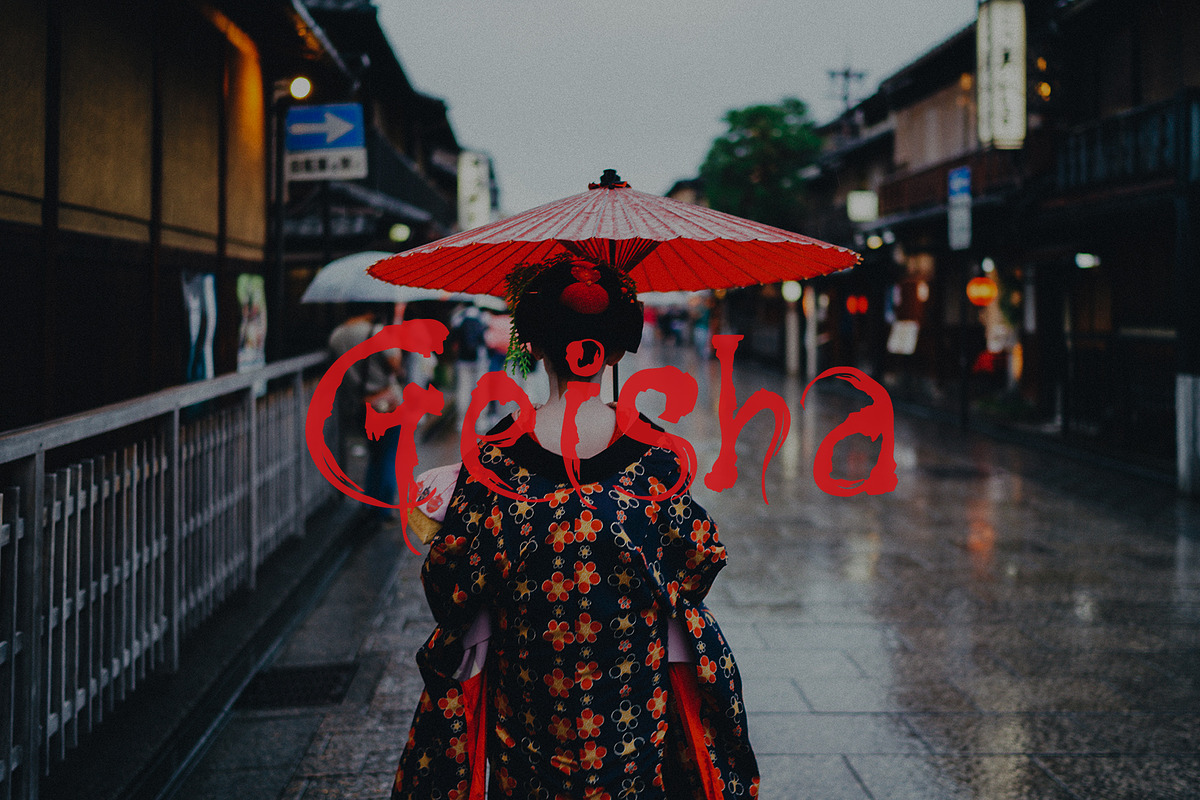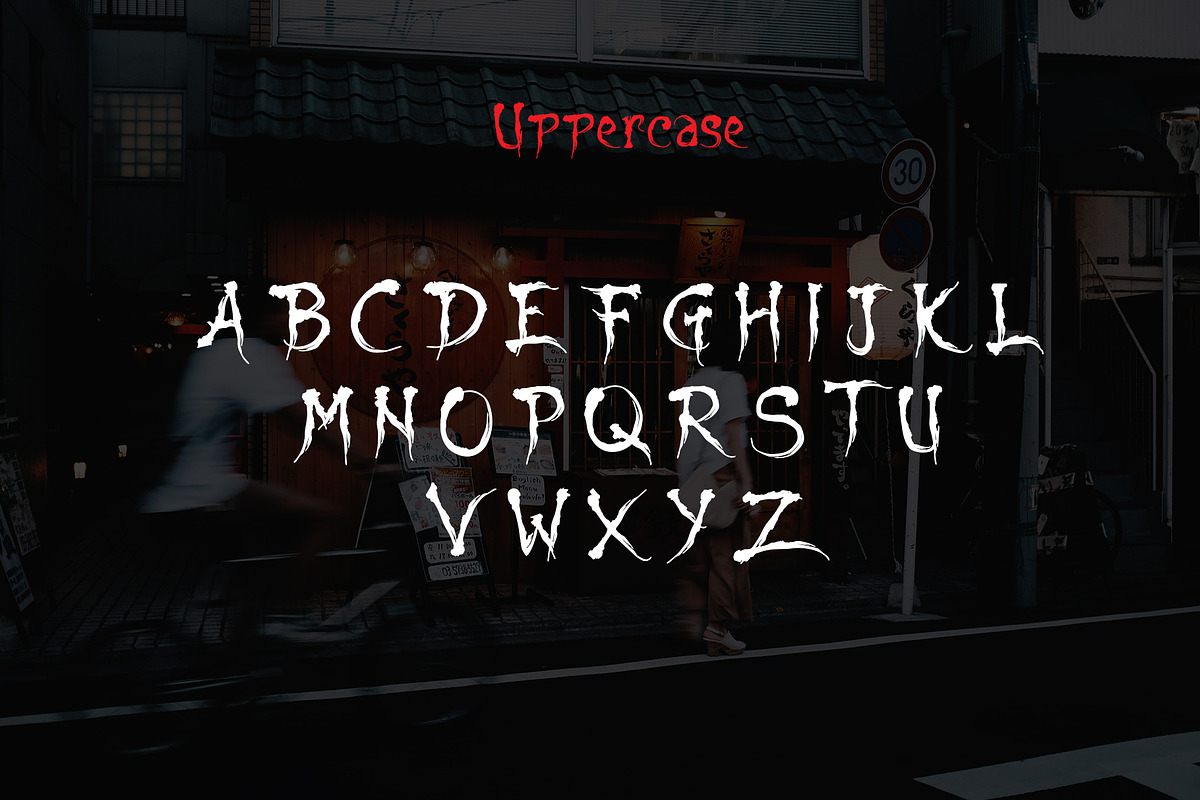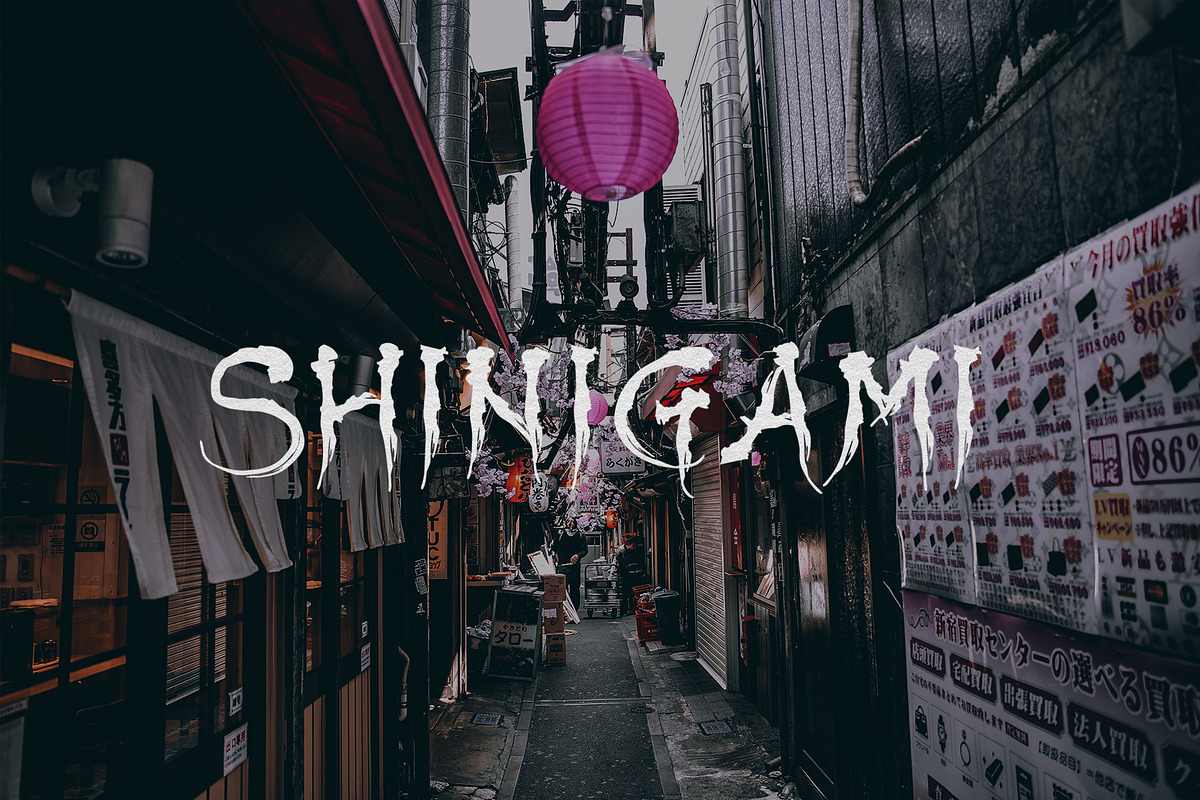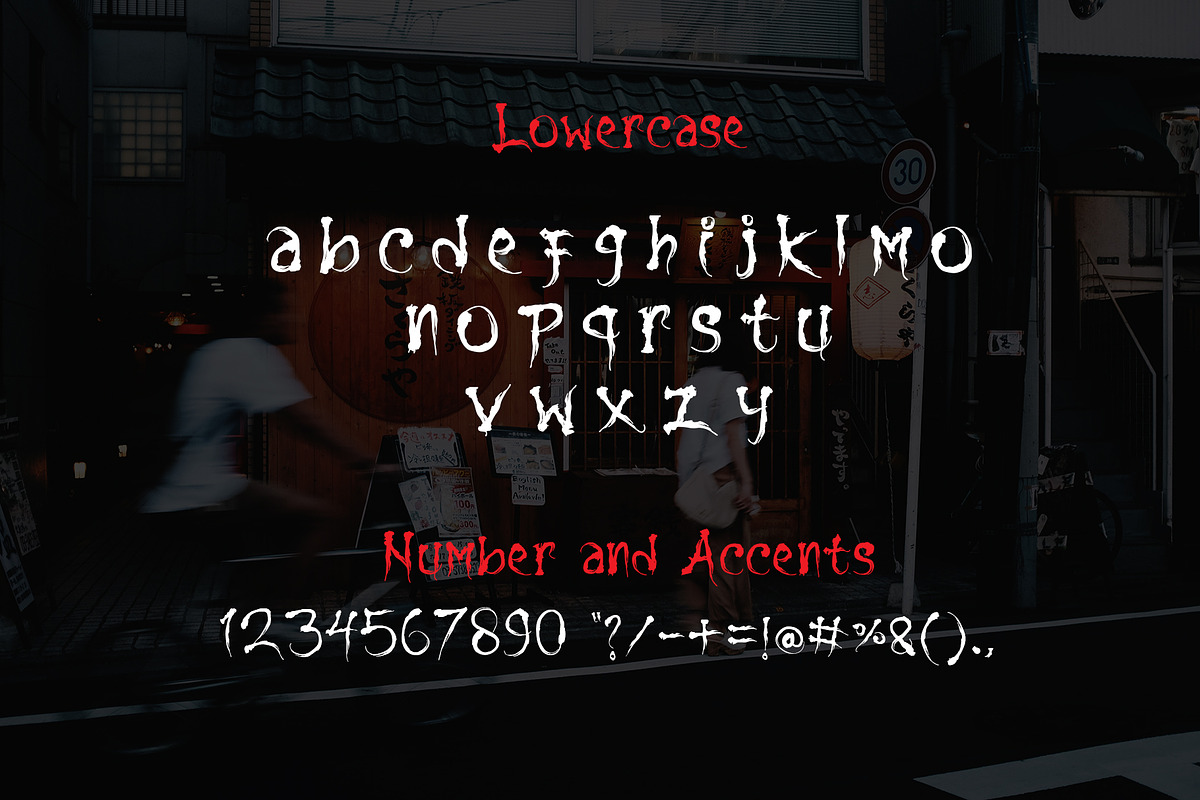
Shinigami font
shinigami is a hand drawn brush font, It's great for logos, branding, print projects and any attention drawing headlines.
Why Shinigami font is worth a look
Shinigami font by Emyself Design fits naturally into Branding, posters, packaging, typography.